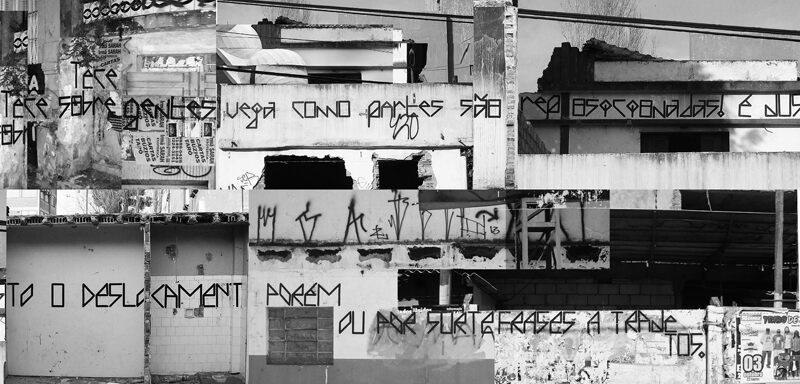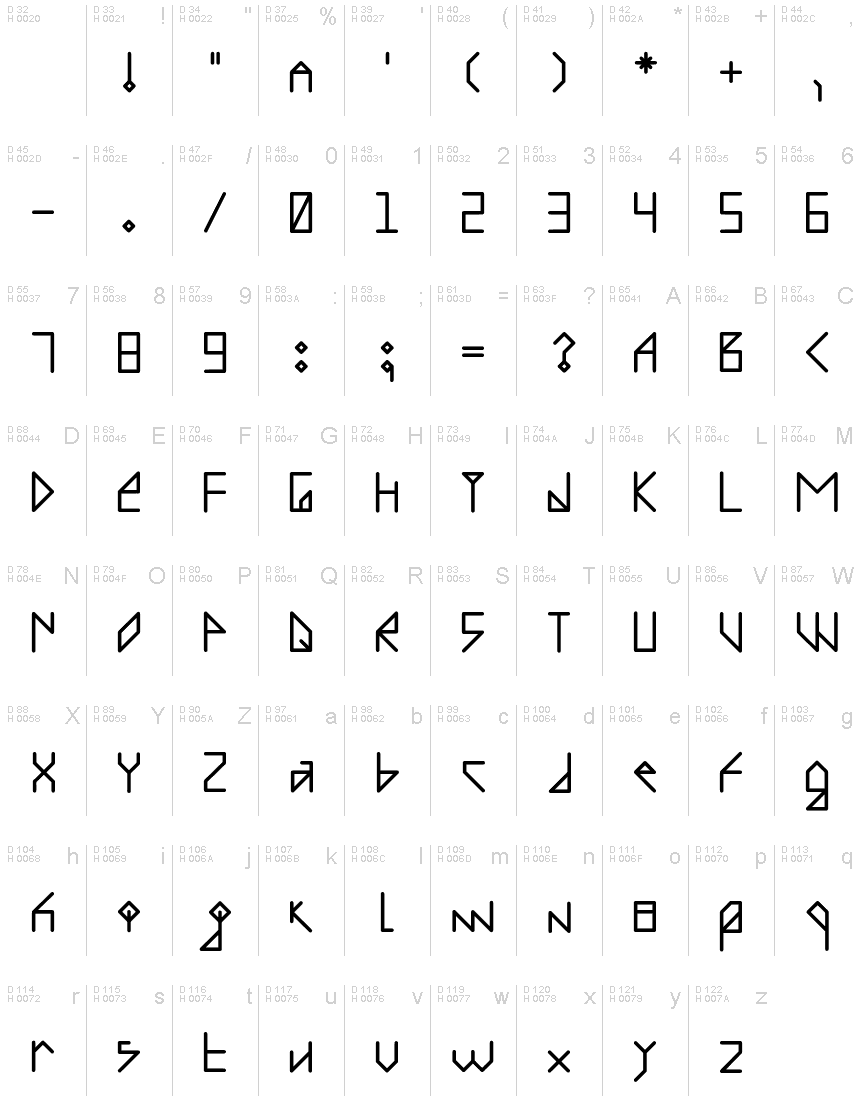
Recombinante
Recombinante, designed by Elias Maroso, emerges as a cutting-edge display font with a distinctly techno style. Its light weight paired with a semi-condensed width crafts an aesthetic that exudes modernity and sophistication. The sharp angles and sleek lines of Recombinante create a futuristic vibe that is both clean and captivating.
The font's unique character shapes make it an outstanding choice for designers looking to infuse their projects with a sense of innovation and forward-thinking design. Whether it's branding, digital media, or print, Recombinante offers versatility while maintaining its distinct personality.
Embrace the contemporary flair of Recombinante to elevate your creative endeavors with its standout presence and stylish appeal.
The font's unique character shapes make it an outstanding choice for designers looking to infuse their projects with a sense of innovation and forward-thinking design. Whether it's branding, digital media, or print, Recombinante offers versatility while maintaining its distinct personality.
Embrace the contemporary flair of Recombinante to elevate your creative endeavors with its standout presence and stylish appeal.